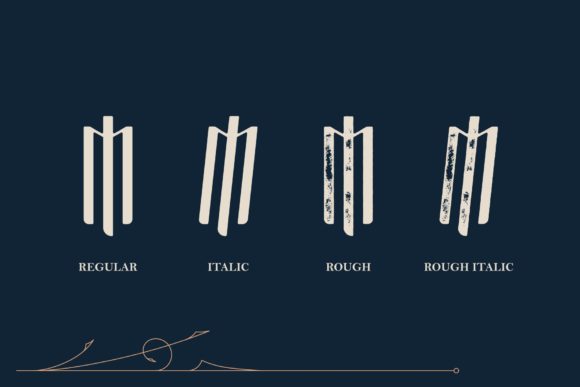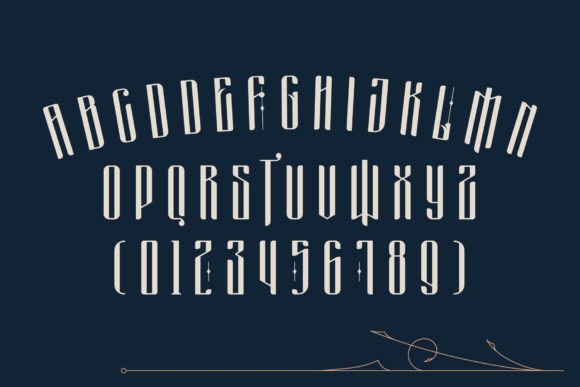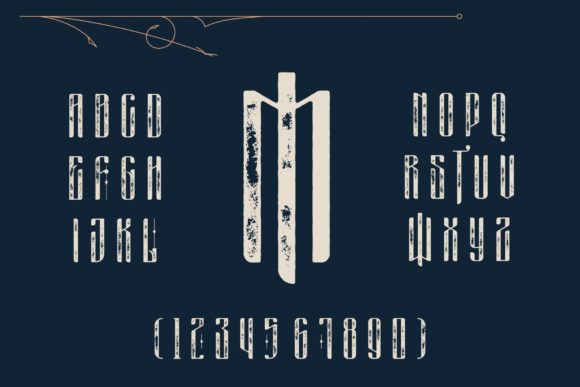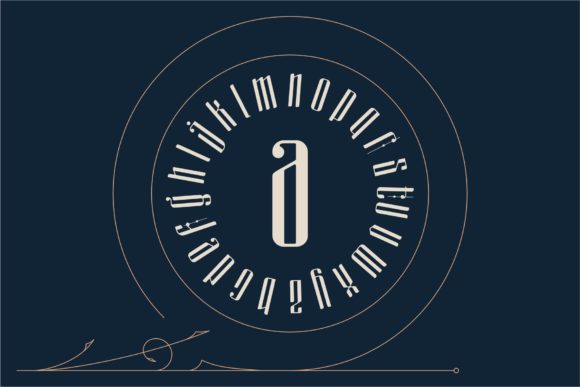
Introduction to Masquerouge Font
As you sit at your desk, surrounded by scattered papers and half-finished designs, you suddenly get that spark of inspiration. A creative project that’s been lingering in the back of your mind finally starts to take shape. But, what’s missing? The perfect font to bring it all together. That’s where the Masquerouge Font comes in – a simple, condensed display font in a Victorian and vintage style that adds a touch of elegance to any design.
For designers, the Masquerouge Font is a valuable resource that can elevate their work from ordinary to extraordinary. With its high-quality design and transparent background, it’s perfect for adding a pop of personality to any creative project. And the best part? It’s available for a free download, making it an accessible addition to any design arsenal.
Key Features of Masquerouge Font
- High-quality design resource ideal for creative projects, offering a unique and stylish touch.
- Comes with a transparent background, allowing for easy integration into various design backgrounds.
- Features a high-resolution design, with a resolution of 300 DPI for crisp and clear display.
- Perfect for use in various design projects, including print and digital media, due to its versatility and style.
Honest Review: Masquerouge Font
I recently had the chance to work with the Masquerouge Font on a creative project and I must say it was a pleasant experience. The Masquerouge Font is a free download that offers a lot of potential for designers.
- High quality design: The Masquerouge Font is designed with great attention to detail and the result is a font that looks professional and sophisticated.
- Transparent background: This feature is perfect for designers who want to add a touch of elegance to their designs without cluttering the background.
⚠️ Limitations:
- Limited character set: The Masquerouge Font has a limited character set, which might not be suitable for designers who need to work with a wide range of characters.
Overall, I was impressed with the Masquerouge Font and I would definitely consider using it again on future design projects. The high quality design, transparent background, and free download make it a great resource for designers. However, the limited character set is something to keep in mind. With a bit of planning, the Masquerouge Font can be a valuable addition to any design project. ✨
The Masquerouge Font is a versatile design resource ideal for creative projects that require a touch of elegance and sophistication. This high-quality font is available for free download, making it an excellent choice for designers of all levels.
Tips for Getting the Most Out of Masquerouge Font
For optimal results, use the Masquerouge Font on a transparent background to create a sense of depth and dimension. You can also pair the font with other high-quality design resources to create a cohesive and visually appealing design.
The Masquerouge Font is suitable for a wide range of creative projects, including wedding invitations, business cards, and marketing materials. Its elegant and sophisticated design makes it an excellent choice for any project that requires a touch of luxury and refinement.